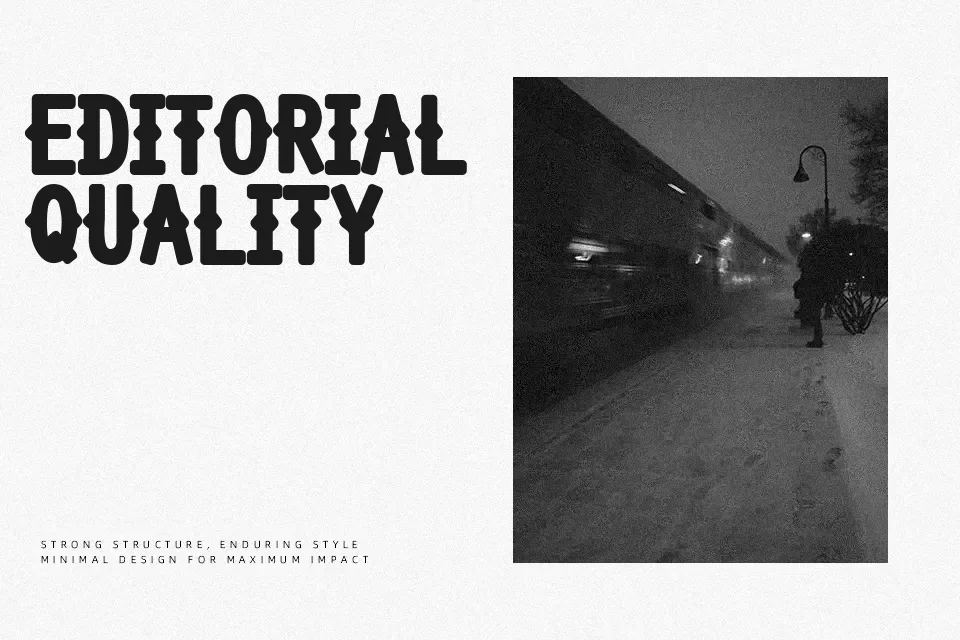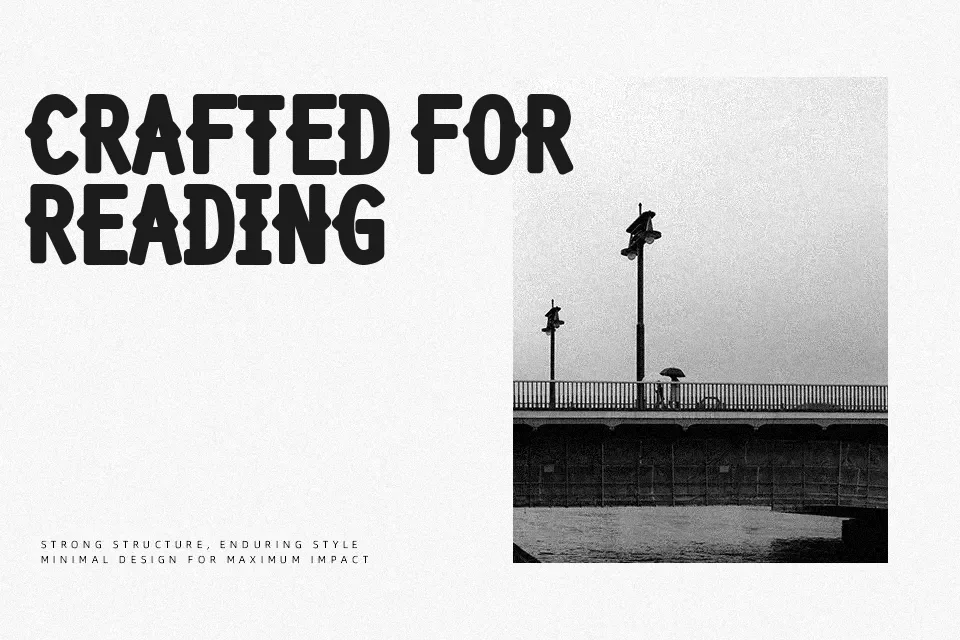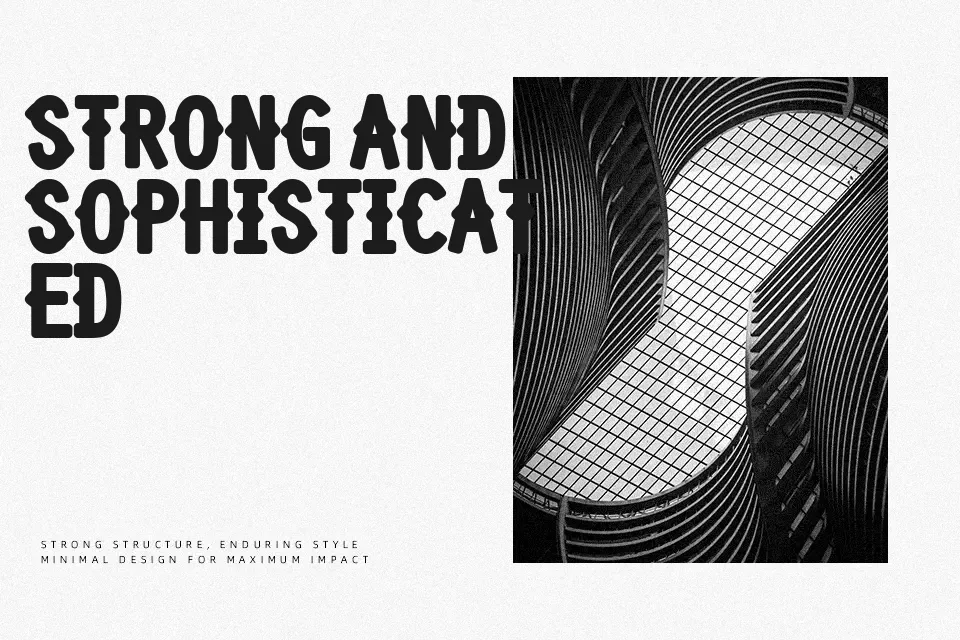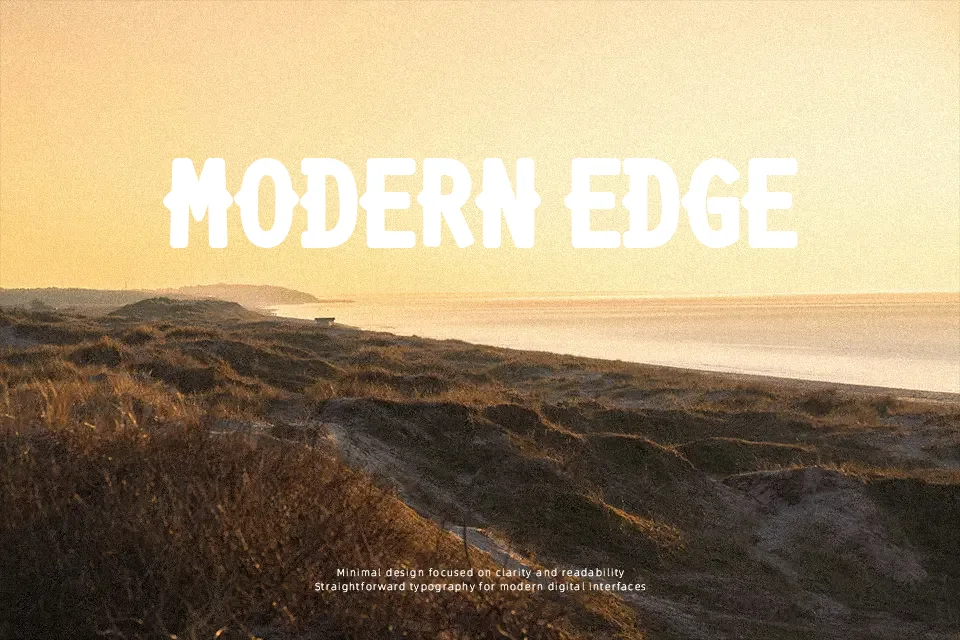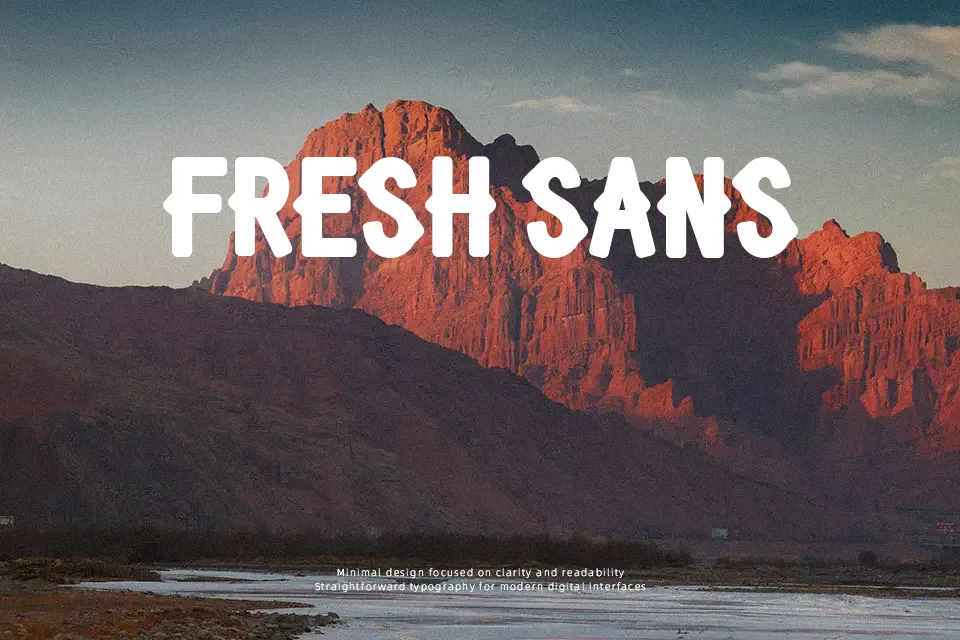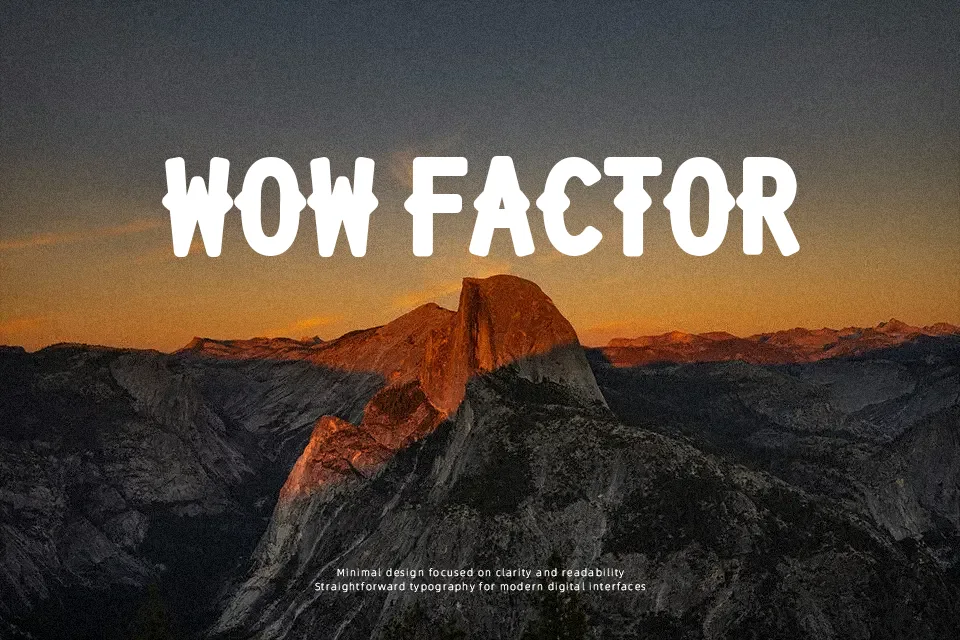
Shourtcut Font
Designed by Arendx Studio
Shourtcut Font features prominent slab serifs, robust vertical stems, and angular geometric accents rooted in traditional wood-type heritage. The typeface exhibits balanced letter spacing paired with uniform, wide proportions that keep each character distinct and impactful. In large display applications, the letterforms deliver exceptional clarity and authentic rustic personality, making the design particularly well suited for brewery branding, outdoor gear badges, and Western-themed restaurant signage. However, the heavy stroke weight and decorative slab terminals cause compact glyph counters to fill in at reduced sizes, making it less suitable for long paragraphs or small captions. The structured geometry helps maintain excellent headline authority across printed mediums.
– vintage product packaging
– western rodeo posters
– rustic saloon signage
– themed apparel graphics
– continuous body text
– mobile interface labels
– small tabular data
– formal legal documents
Perfect for advertising, headline, and logo, with a bold and decorative style.